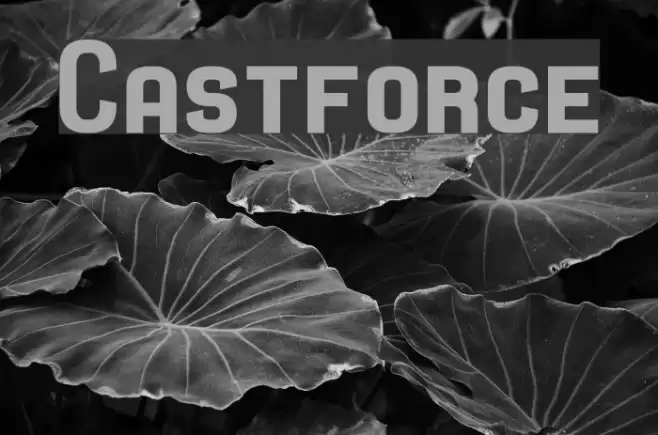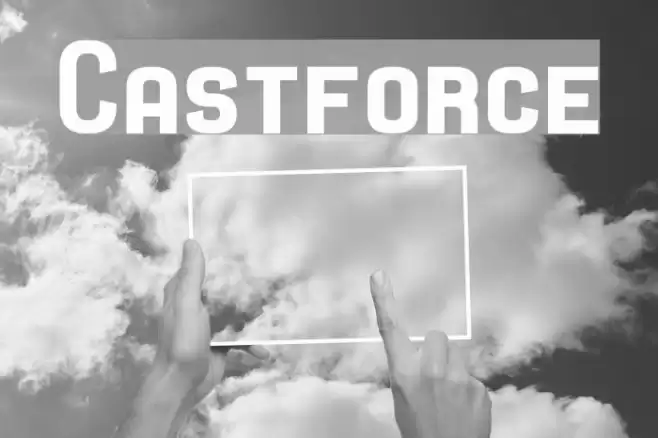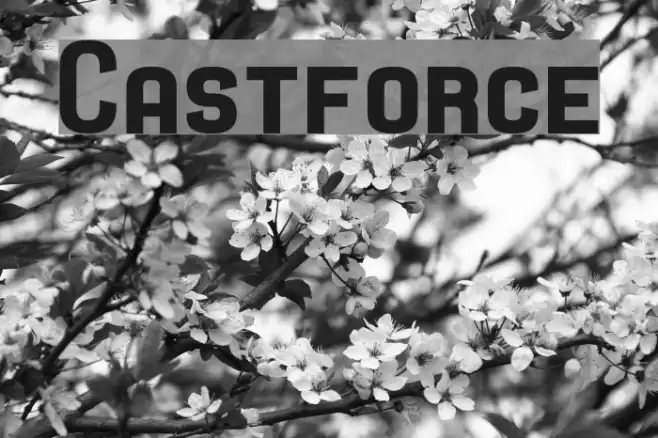
Castforce Font
Castforce Description
This font features a bold and robust design with a modern and geometric aesthetic. The characters are uniformly thick, providing a strong visual impact. The uppercase letters have a squared-off appearance with rounded corners, giving them a contemporary feel. The lowercase letters maintain the same thickness, ensuring consistency across the typeface. The numbers are clear and legible, matching the boldness of the alphabet. Special characters are designed with the same attention to detail, making them suitable for various applications. Overall, this font is versatile and can be used in a wide range of design projects.
A bold, geometric font with a modern and robust style from Uncategorized fonts.
- Proposed Projects: Ideal for branding, headlines, posters, and digital media where a strong visual presence is needed.